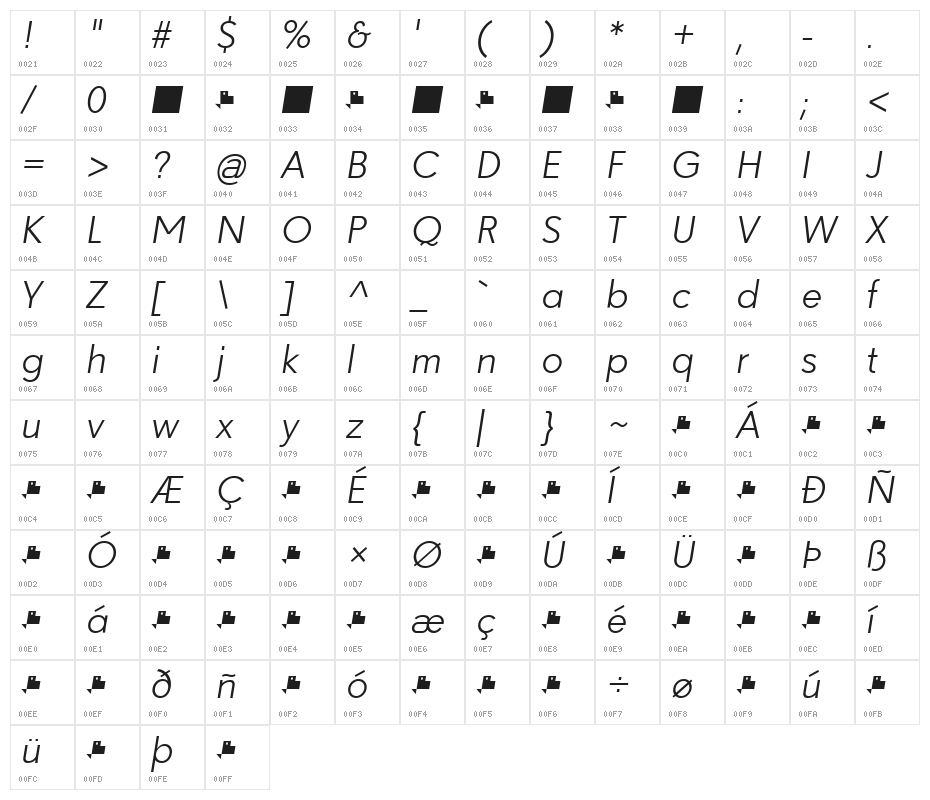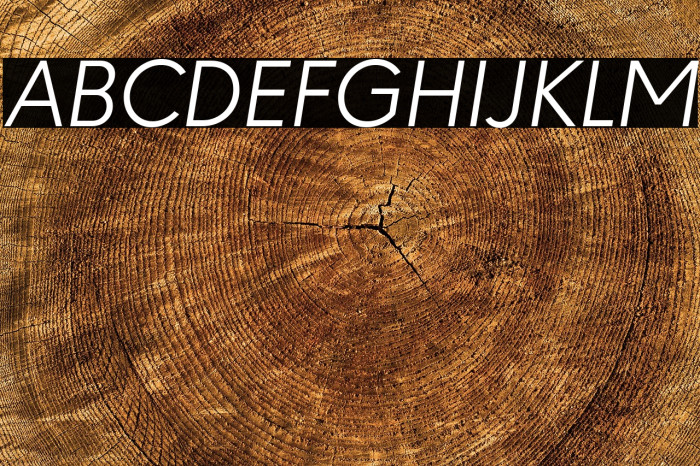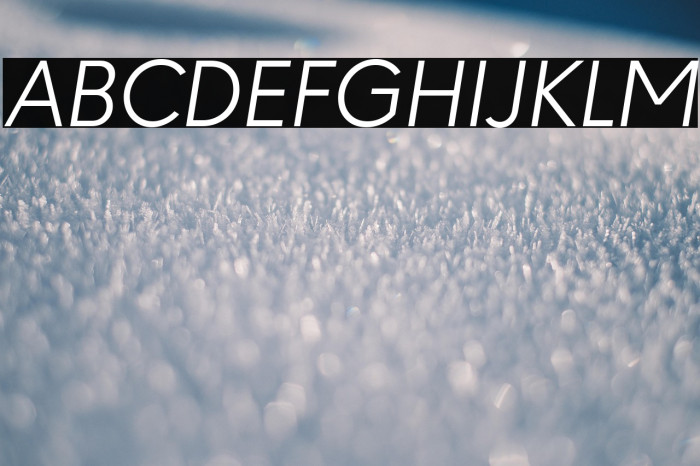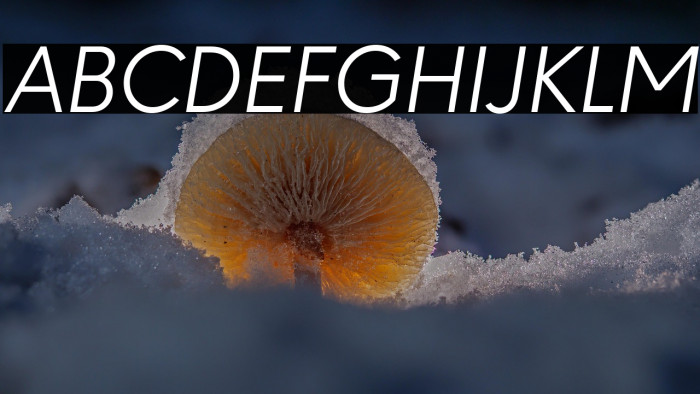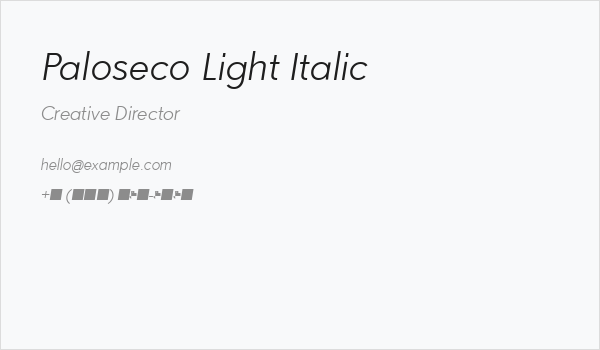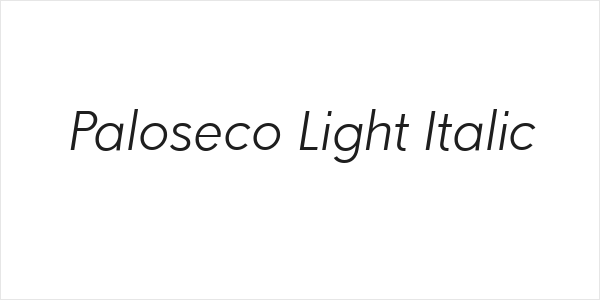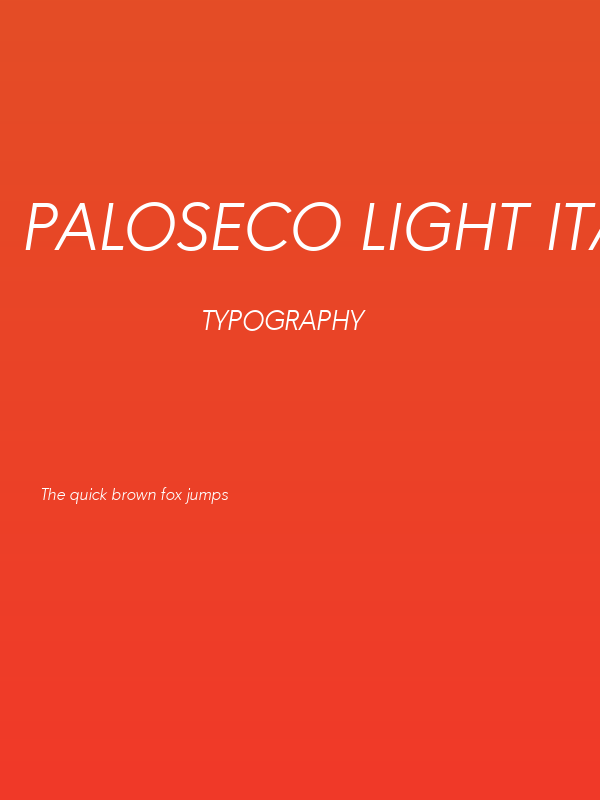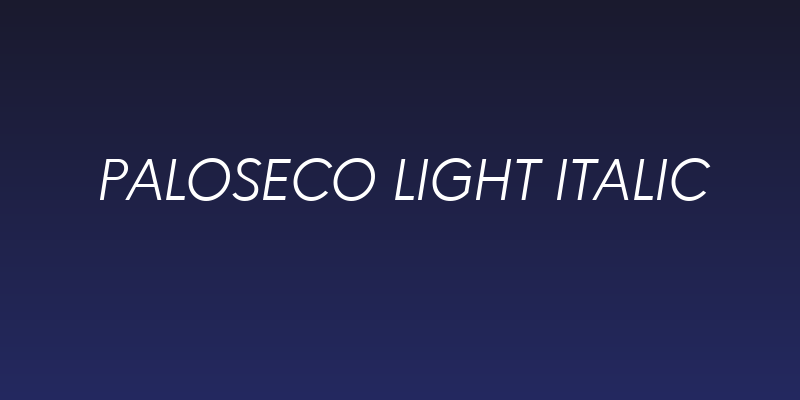
Paloseco Light Italic Font
Paloseco Light Italic Description
This font features a sleek and modern design with a light weight and italic style. The characters are elegantly crafted with smooth curves and a slight slant, giving it a dynamic and sophisticated appearance. The uppercase and lowercase letters maintain a consistent style, with a uniform stroke width that enhances readability. The numerals are clear and distinct, while the special characters are well-integrated, maintaining the overall aesthetic. This font is ideal for projects that require a contemporary and stylish look, offering versatility across various design applications.